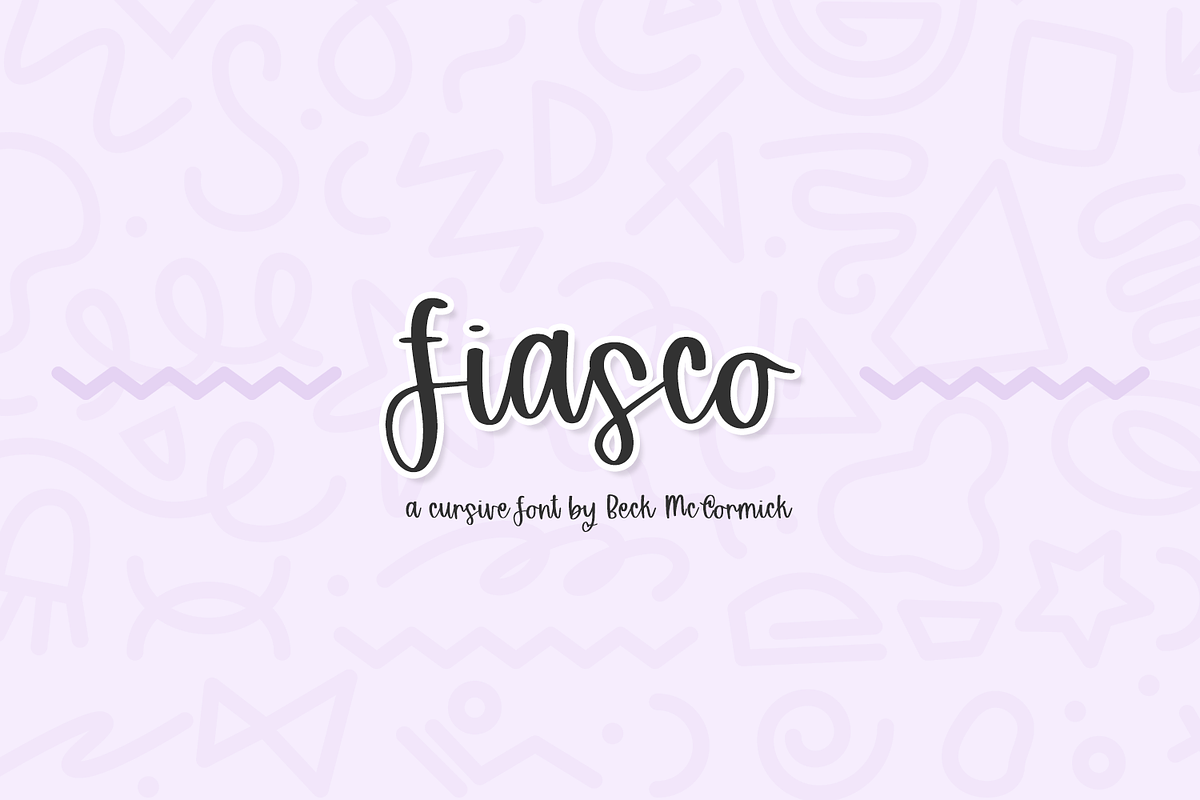
Fiasco Script Font Free Download is a stylish and expressive typeface that blends modern calligraphy with a bold, handwritten flair. With its flowing strokes and dynamic curves, Fiasco is perfect for logos, wedding invitations, social media posts, branding, and any project that calls for a personal, artistic touch. It delivers elegance without being overly formal—ideal for creatives who want their message to feel both classy and approachable.
By using the Fiasco Script Font Free Download, you’re adding a handcrafted, signature vibe to your typography. The font features beautiful ligatures and alternates that give each word a custom-designed feel. Whether you're aiming for romance, luxury, or personality-packed design, Fiasco fits the bill.